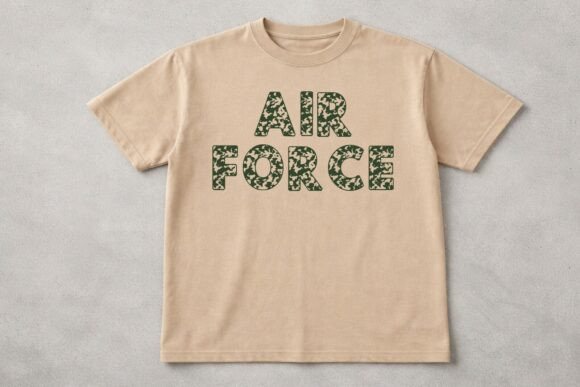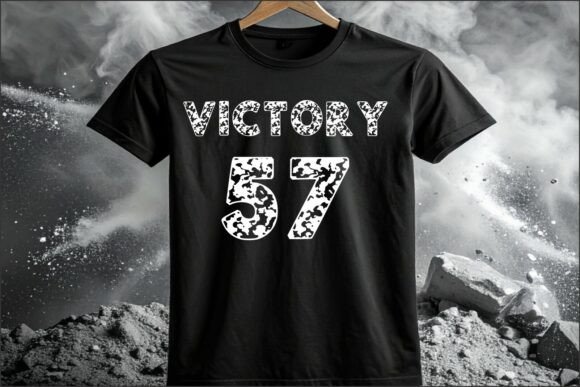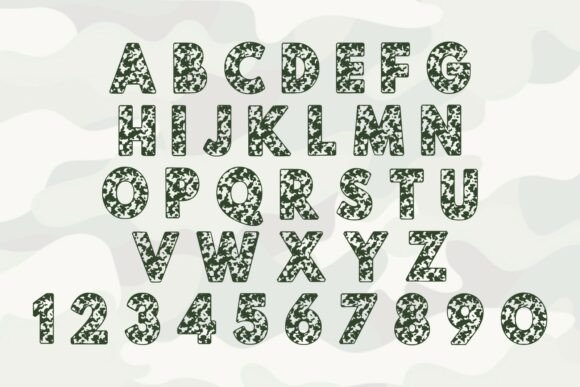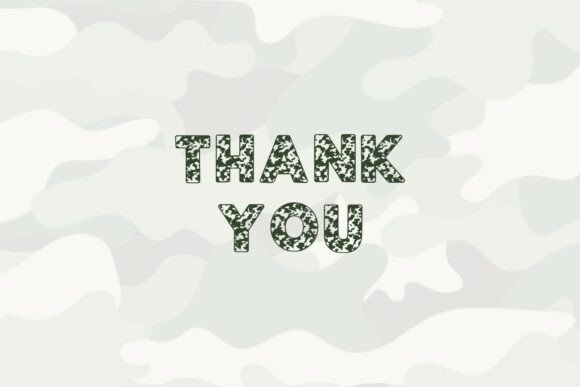
Army Strong Font: Unleash the Power of Military-Inspired Typography
Are you looking for a font that exudes strength, ruggedness, and a sense of adventure? Look no further than the Army Strong Font, a bold camouflage-style display font that is inspired by military patterns and the great outdoors. This powerful font is perfect for designers and crafters who want to add a tough, masculine, and adventurous feel to their designs.
What is Army Strong Font?
Army Strong Font is a unique and eye-catching font that features strong letterforms filled with a camo texture. The font’s design is inspired by military patterns, giving it a rugged and tactical look that is perfect for army themes, survival designs, outdoor branding, and adventure projects. The font’s bold and sturdy letterforms make it ideal for use in headlines, posters, apparel, logos, and other visual materials where a strong and impactful look is desired.
Key Features of Army Strong Font
• Bold and Sturdy Letterforms: The font features strong and sturdy letterforms that are perfect for making a bold statement.
• Camouflage Texture: The font’s letterforms are filled with a camo texture, giving it a unique and eye-catching look.
• Military-Inspired Design: The font’s design is inspired by military patterns, making it perfect for army themes and survival designs.
• Versatile: The font is versatile and can be used in a variety of design projects, including posters, apparel, logos, and more.
Uses of Army Strong Font
Army Strong Font is perfect for a wide range of design projects, including:
• Army Themes: The font is perfect for designing materials for army themes, such as recruitment posters, army logos, and more.
• Survival Designs: The font’s rugged and tactical look makes it perfect for survival designs, such as outdoor gear logos and survival guide covers.
• Outdoor Branding: The font is ideal for outdoor branding, such as logos for outdoor gear companies, hiking trail signs, and more.
• Posters: The font’s bold and eye-catching design makes it perfect for posters, such as movie posters, event posters, and more.
• Apparel: The font is great for designing apparel, such as t-shirts, hats, and more.
• Logos: The font is perfect for designing logos for companies that want a strong and impactful look.
• Adventure Projects: The font is ideal for adventure projects, such as travel brochures, outdoor adventure guides, and more.
Why Choose Army Strong Font?
There are many reasons why you should choose Army Strong Font for your design projects. Here are a few:
• Unique and Eye-Catching: The font’s unique and eye-catching design makes it perfect for grabbing attention and making a bold statement.
• Tough and Masculine: The font’s rugged and tactical look gives it a tough and masculine feel that is perfect for army themes and survival designs.
• Versatile: The font is versatile and can be used in a wide range of design projects.
• High-Quality: The font is high-quality and is designed to deliver a powerful and impactful look.
Army Strong Font is a powerful and versatile font that is perfect for designers and crafters who want to add a tough, masculine, and adventurous feel to their designs. With its bold and sturdy letterforms, camouflage texture, and military-inspired design, this font is ideal for a wide range of design projects, including army themes, survival designs, outdoor branding, posters, apparel, logos, and more. So why wait? Download Army Strong Font today and unleash the power of military-inspired typography in your designs!